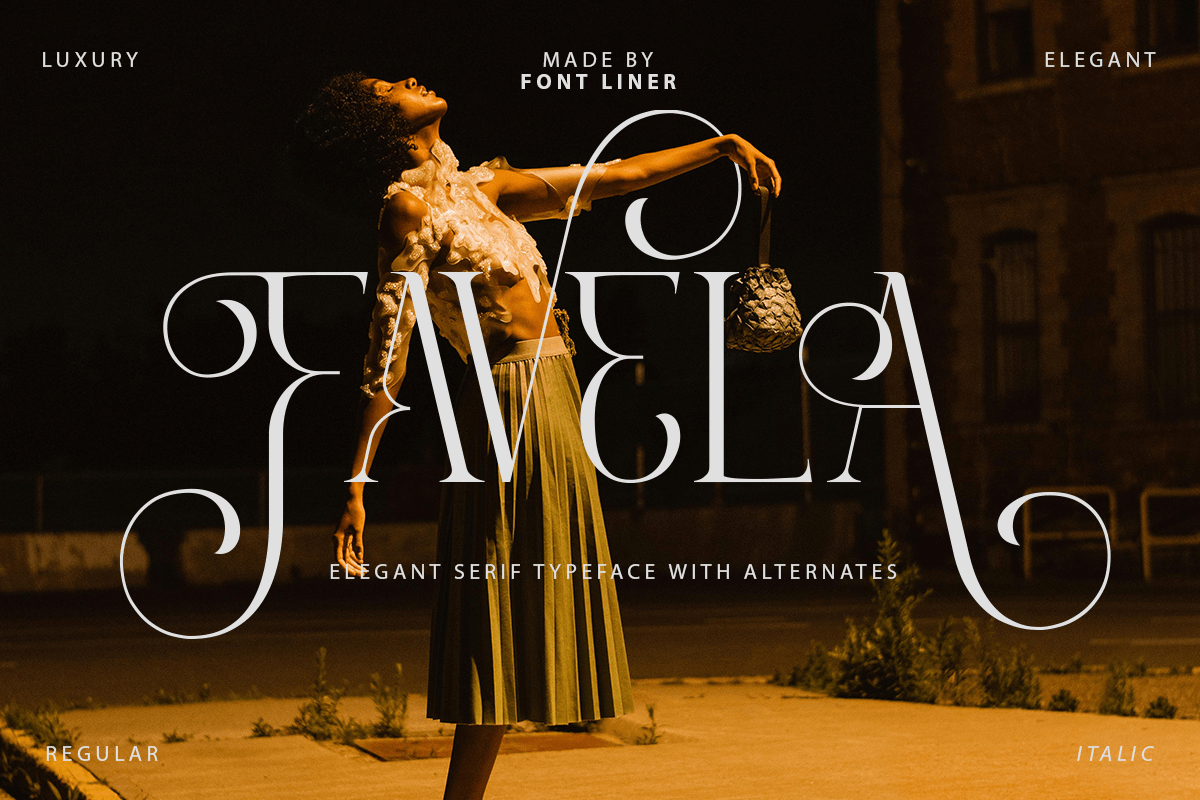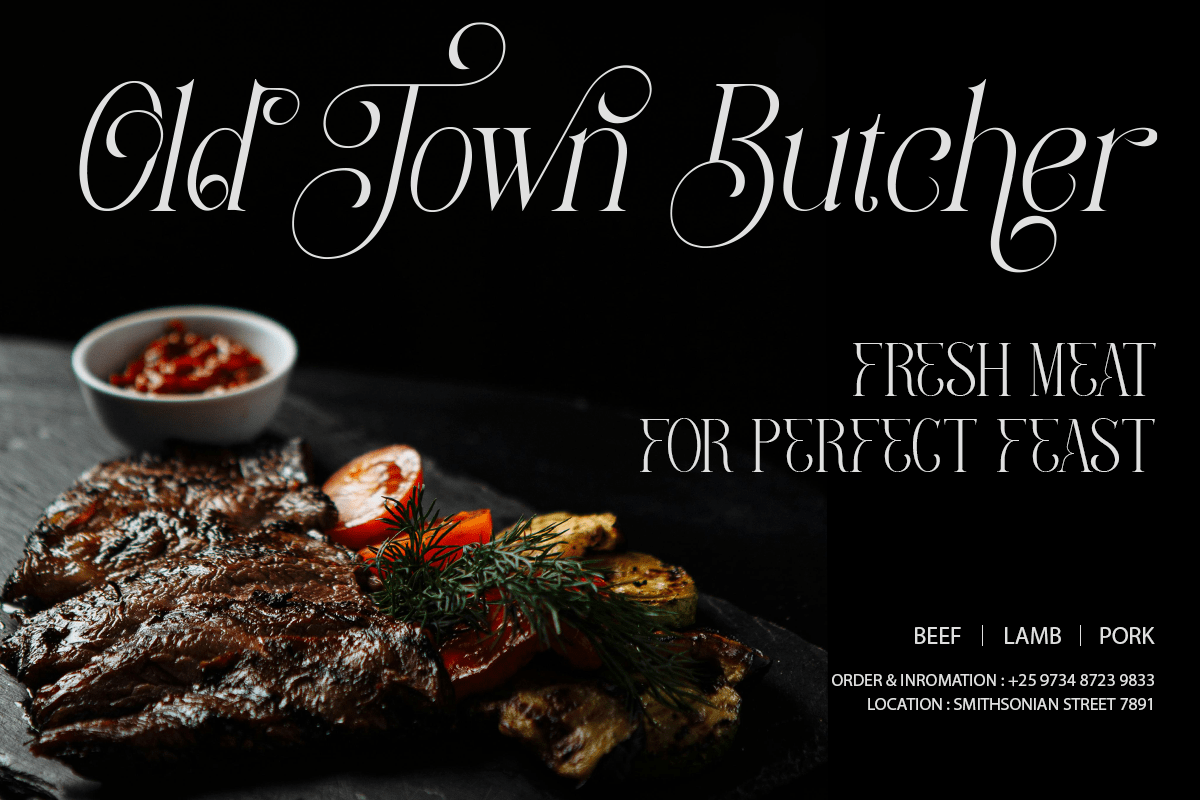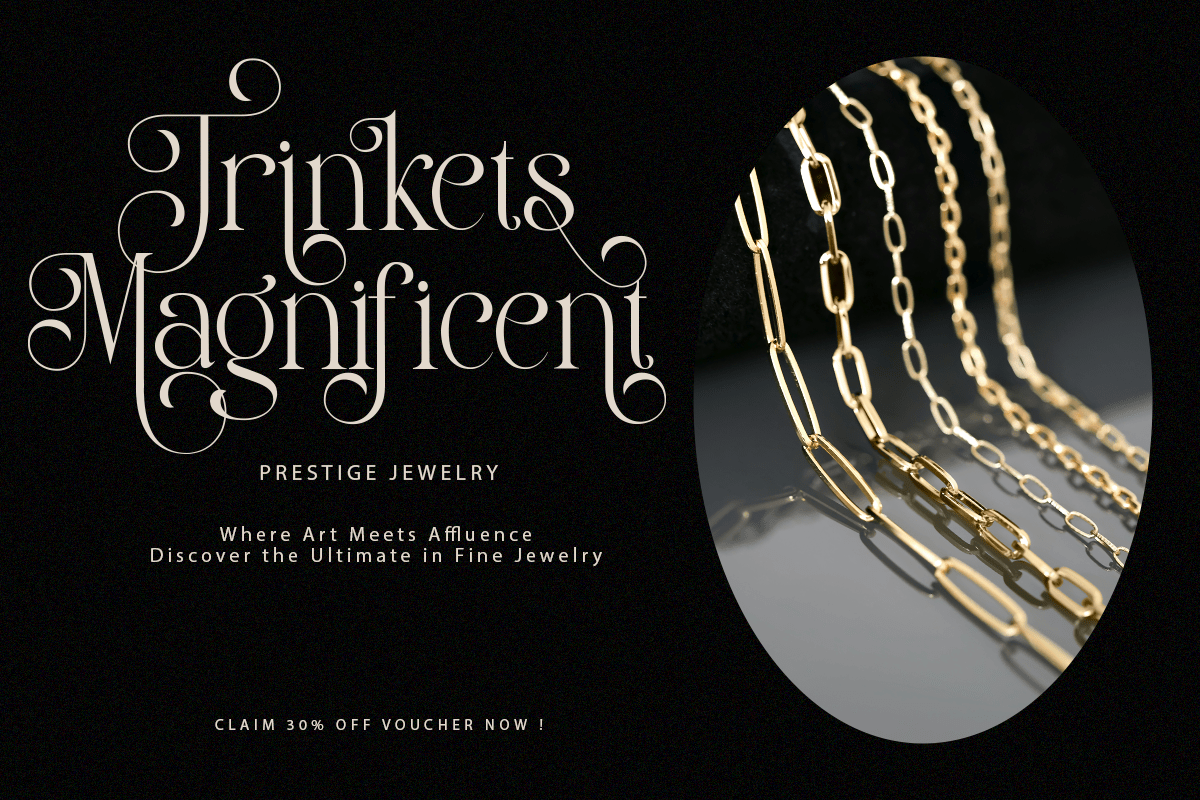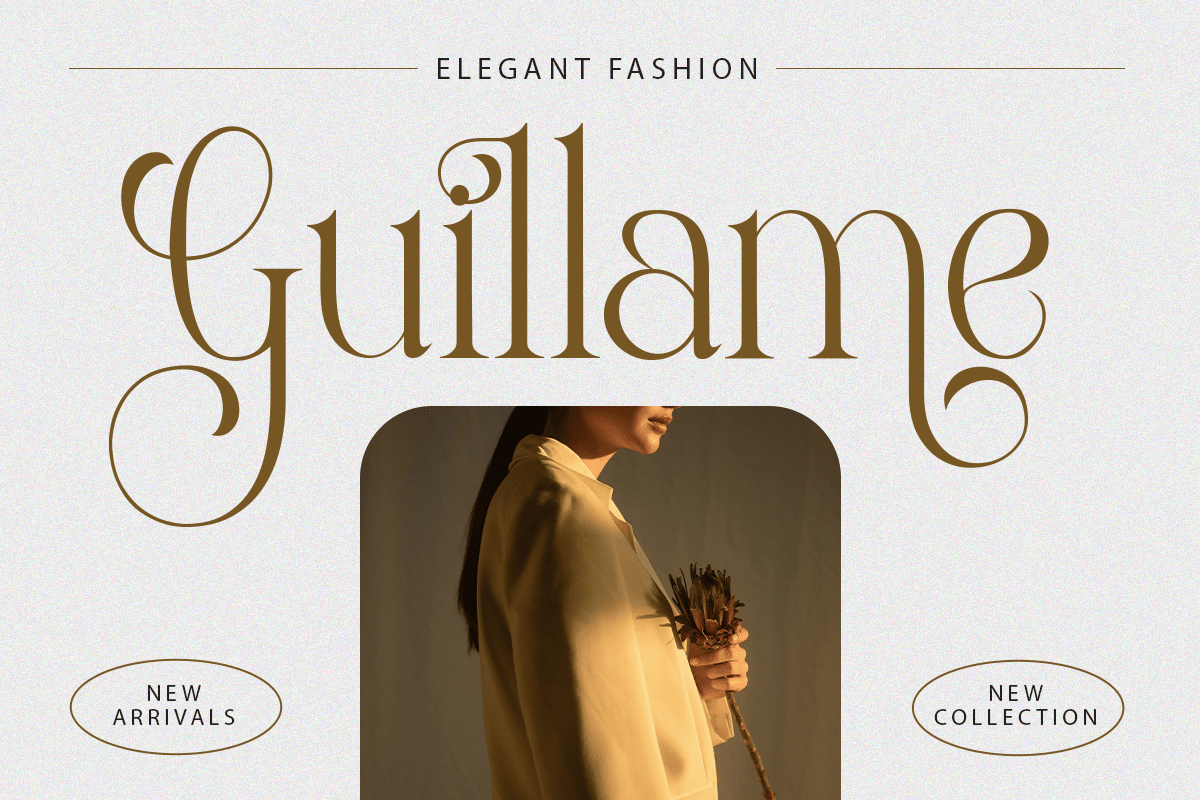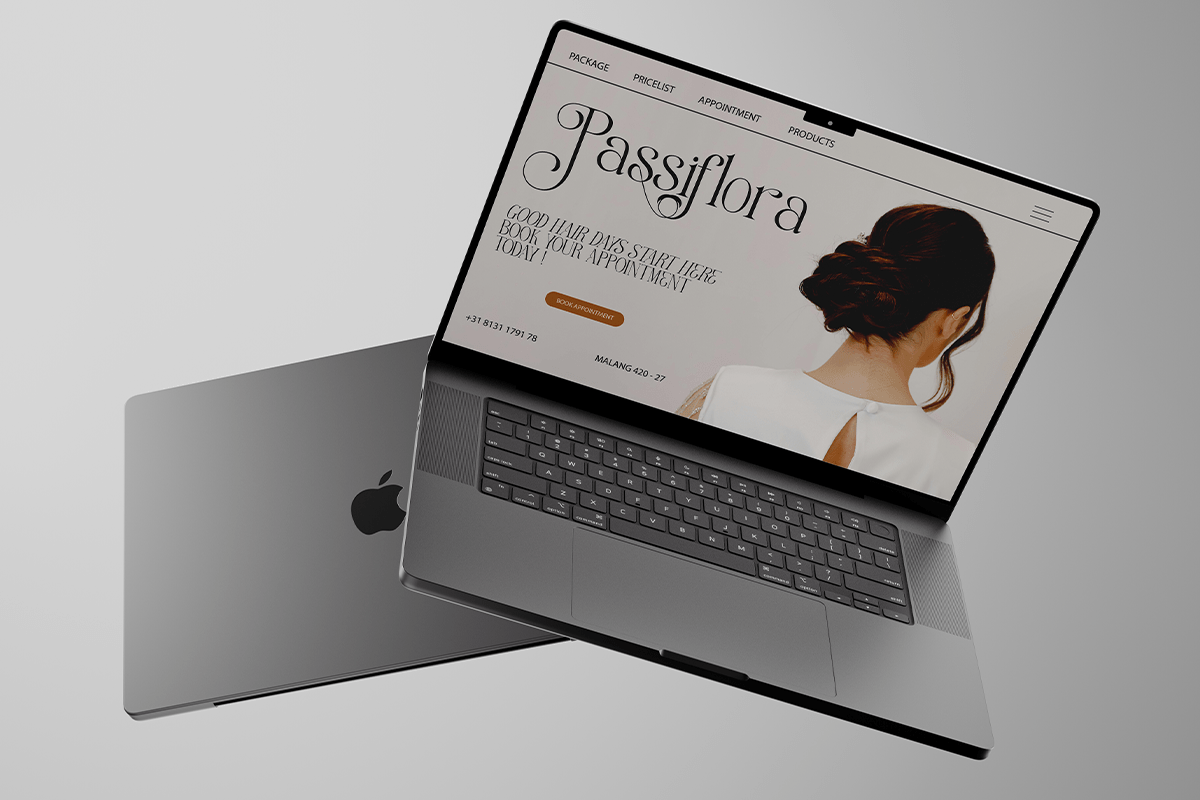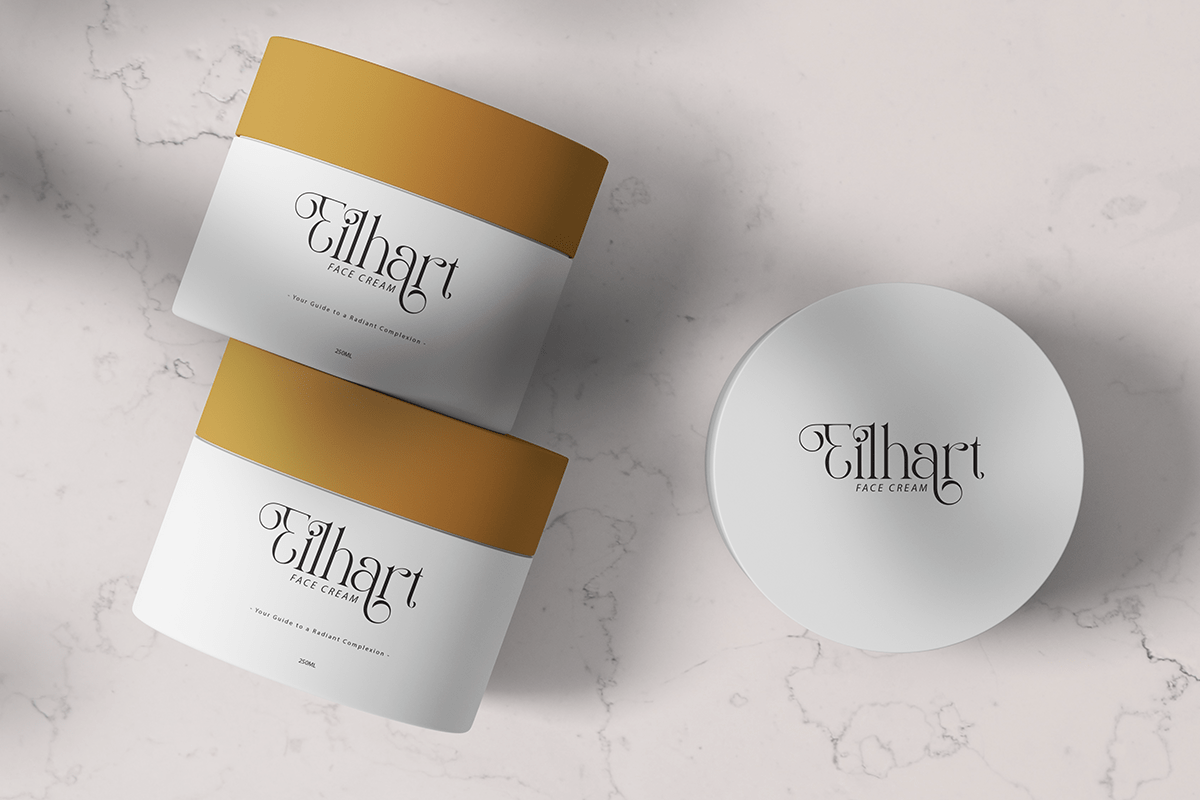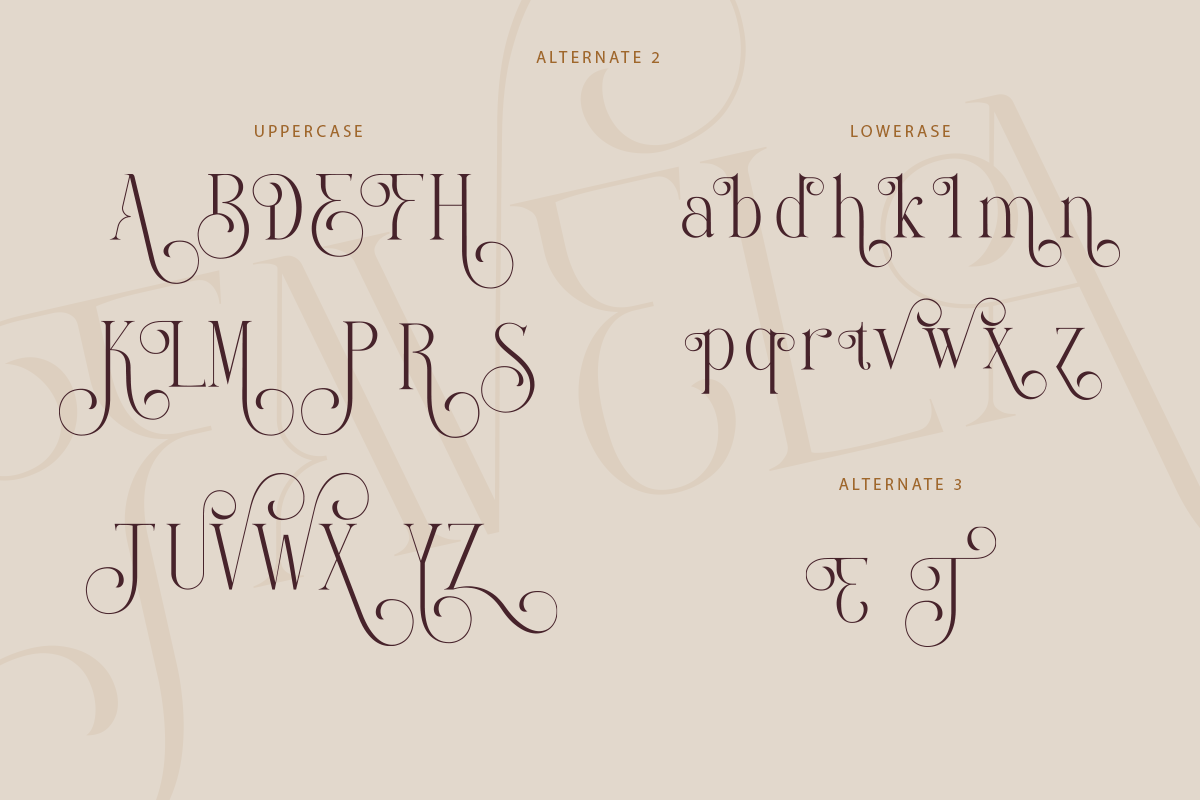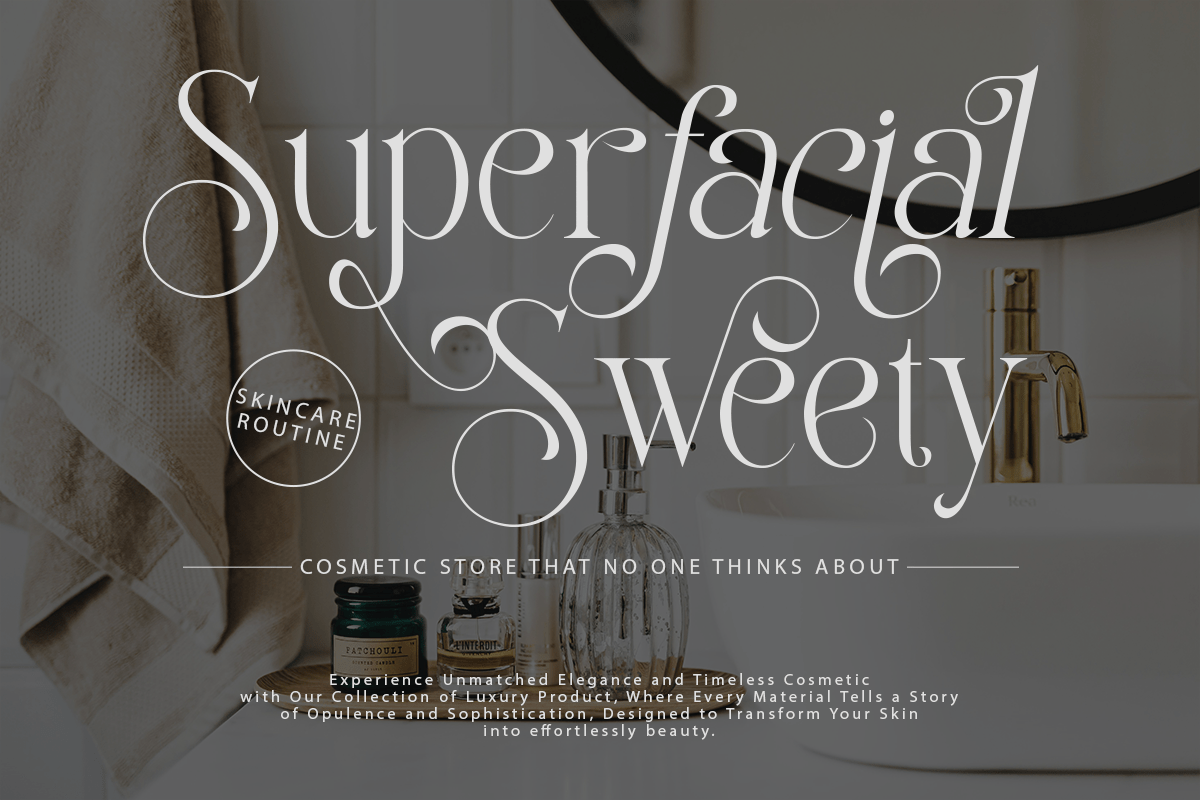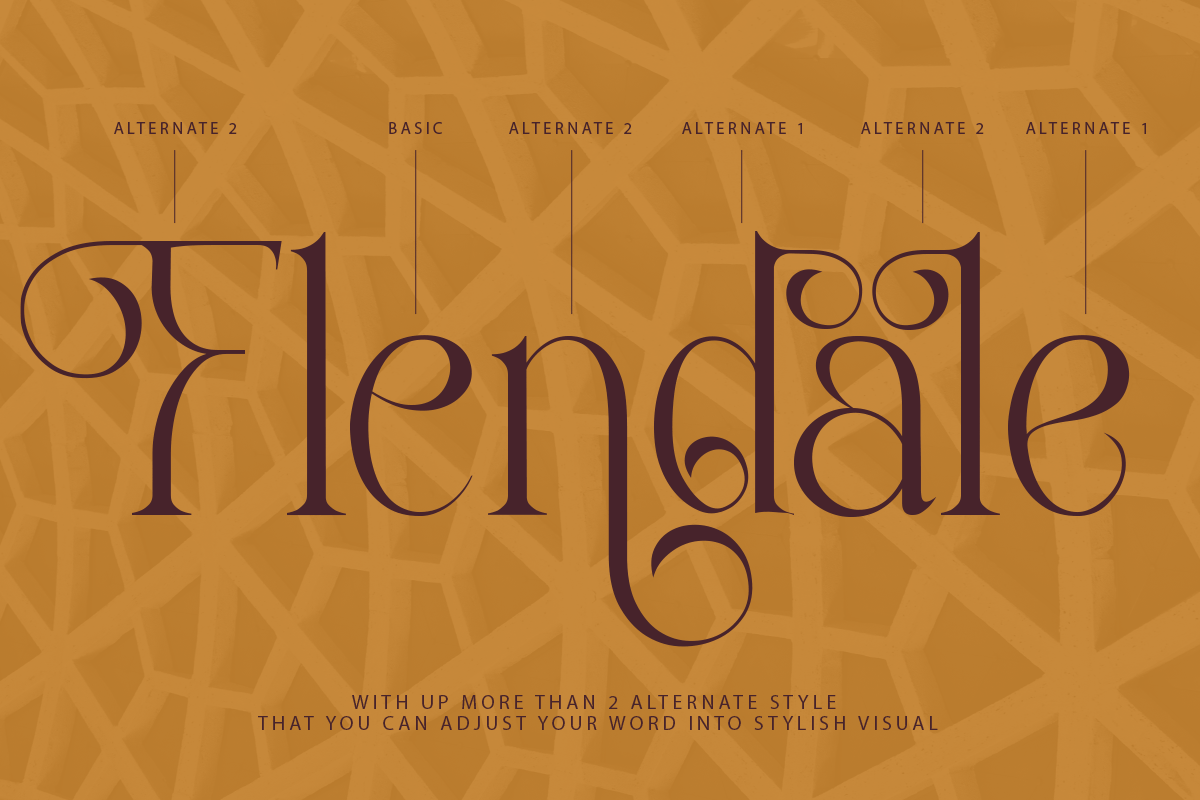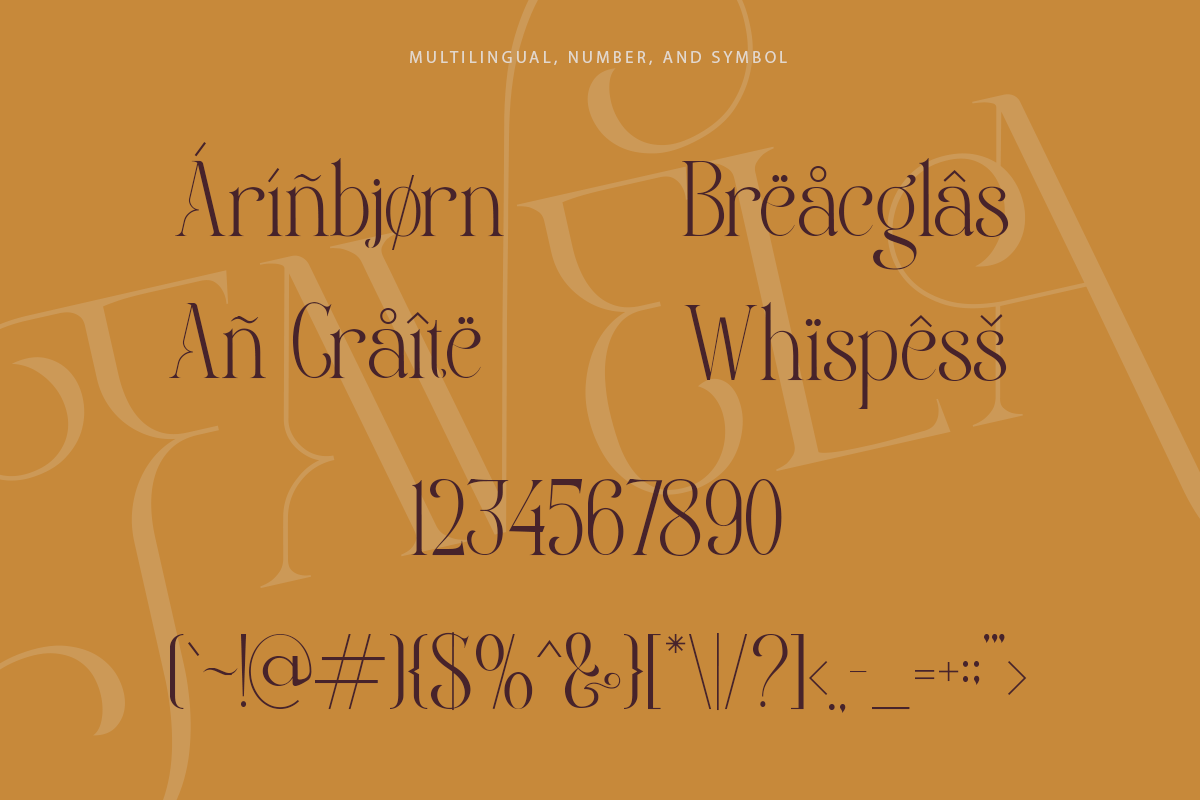
Favela – Luxury Decorative Serif Font
Favela is a luxury decorative serif font that combines timeless elegance with artistic sophistication. Featuring graceful high-contrast letterforms, flowing ornamental alternates, and beautifully refined curves, this typeface creates an unmistakable premium aesthetic. Every character is carefully crafted to deliver a luxurious editorial look, making Favela an excellent choice for designers seeking typography that feels exclusive, fashionable, and unforgettable.
Designed for luxury branding, fashion houses, jewelry collections, beauty products, cosmetics, perfumes, editorials, wedding stationery, boutique businesses, premium packaging, hotels, restaurants, magazines, social media, and elegant marketing materials, Favela performs beautifully across both print and digital media. Whether you’re creating sophisticated logos, luxury product packaging, editorial headlines, or high-end visual identities, this font instantly elevates every design with refined style and timeless charm.
Favela includes uppercase and lowercase characters, decorative alternates, stylish ligatures, multilingual support, numerals, punctuation, and symbols, giving designers complete creative flexibility. From luxury branding and elegant invitations to cosmetic packaging and fashion editorials, Favela is the perfect decorative serif font for creating graceful, memorable, and professional typography.
– Stylistic alternates
– Uppercase, Lowercase & Ligatures